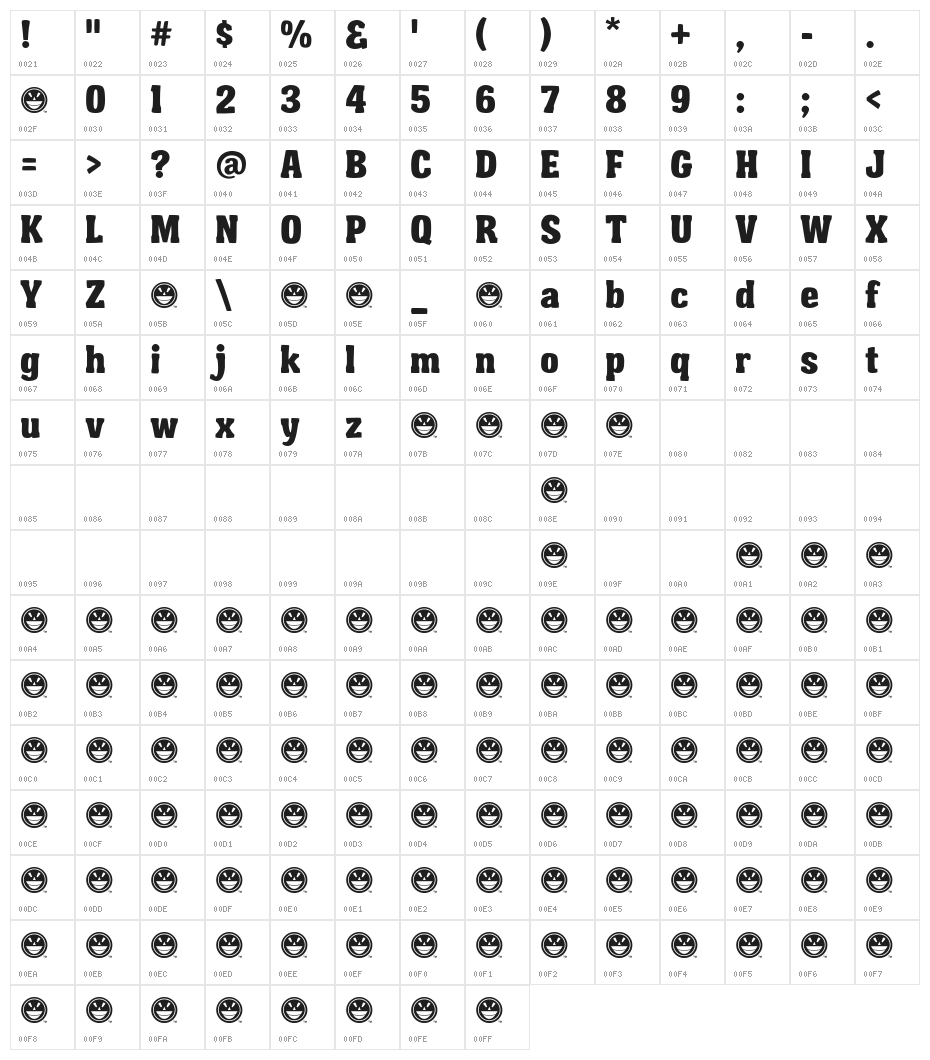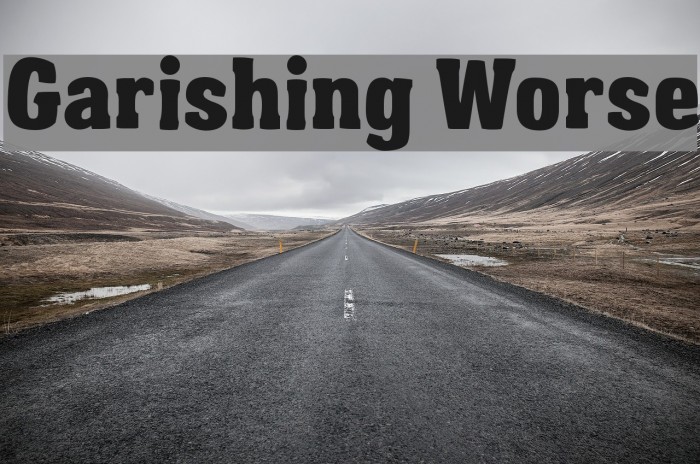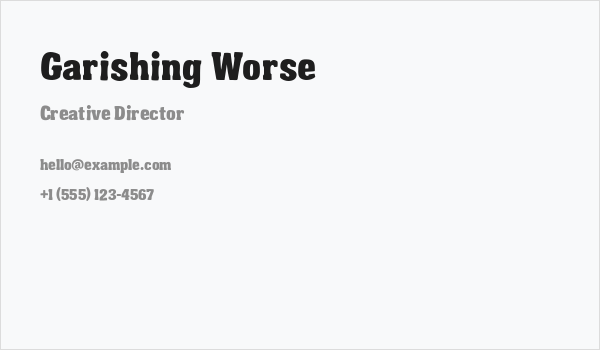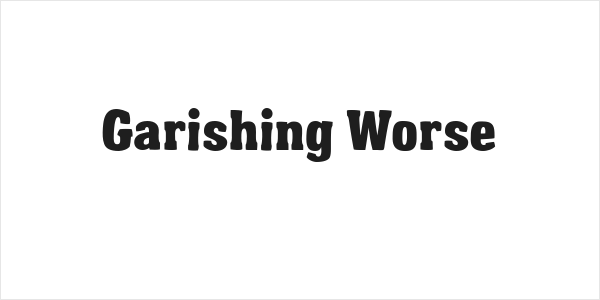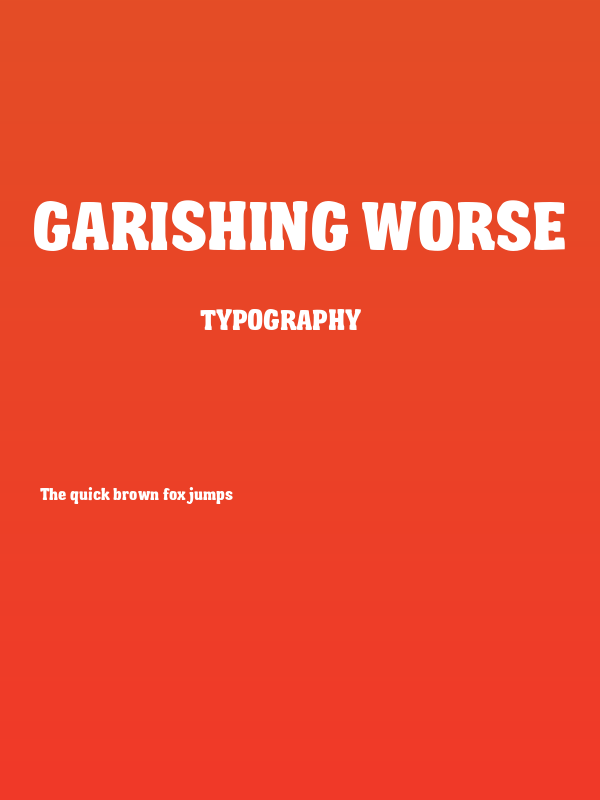
Garishing Worse Font
Garishing Worse Description
This font features a bold and robust design with thick, heavy strokes that give it a strong presence. The characters are uniformly wide, with rounded edges that soften the overall look, making it approachable yet assertive. The uppercase letters are particularly striking, with a sense of authority and impact. The lowercase letters maintain the same weight and width, ensuring consistency across text. Numbers and special characters are equally bold, providing a cohesive appearance throughout. This font's style is reminiscent of vintage poster typography, with a modern twist that makes it suitable for contemporary designs.